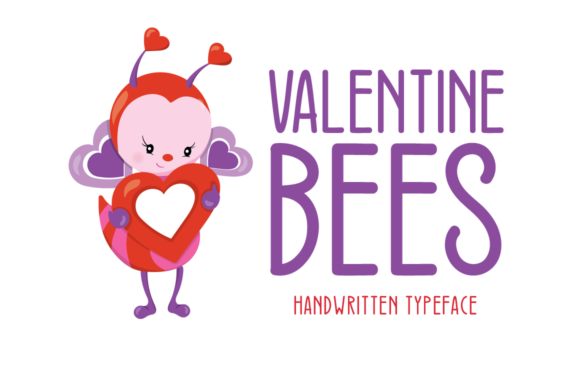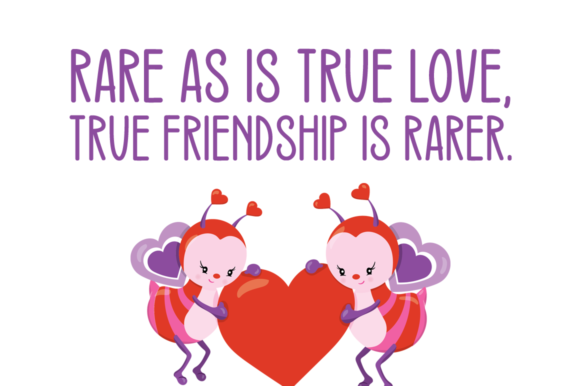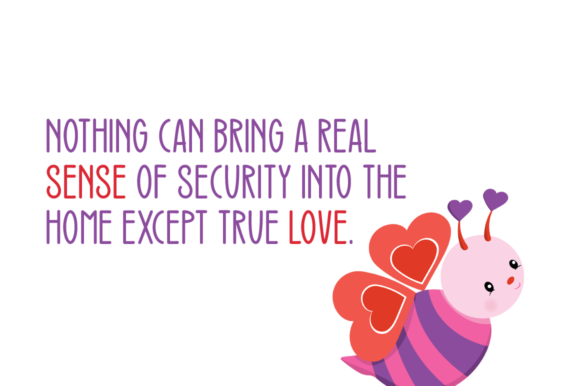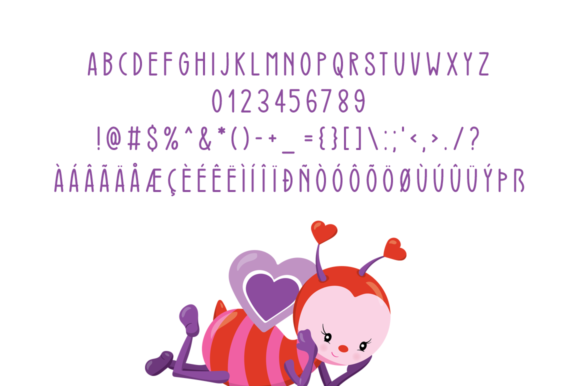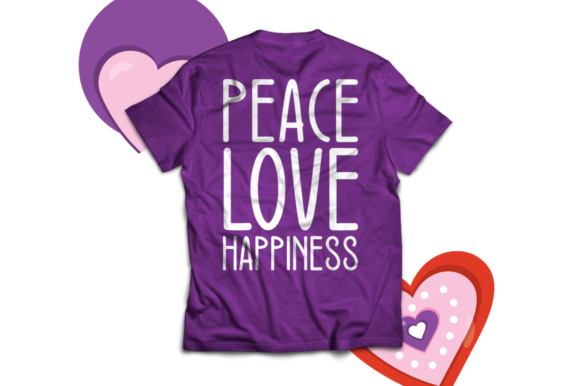
Valentine Bees Font
About Valentine Bees Font
Valentine Bees is a brand new handwritten font. Authentic, Eye-catching and suited for a wide variety of projects!